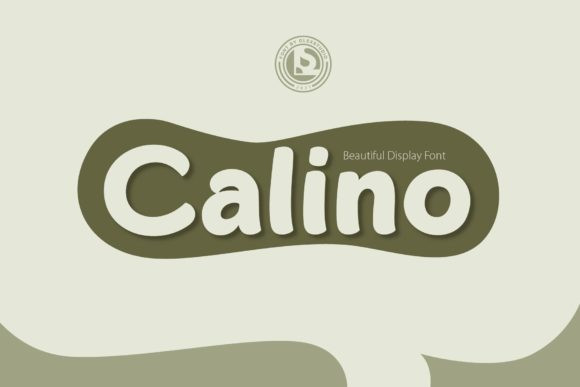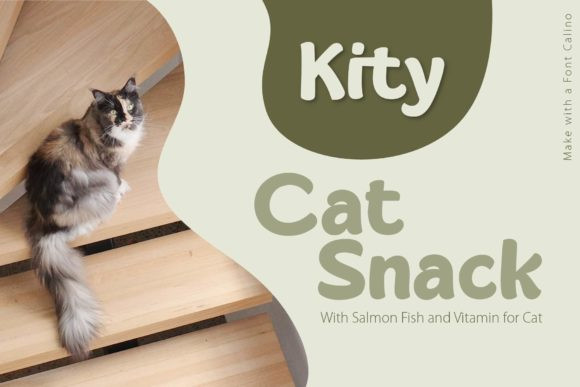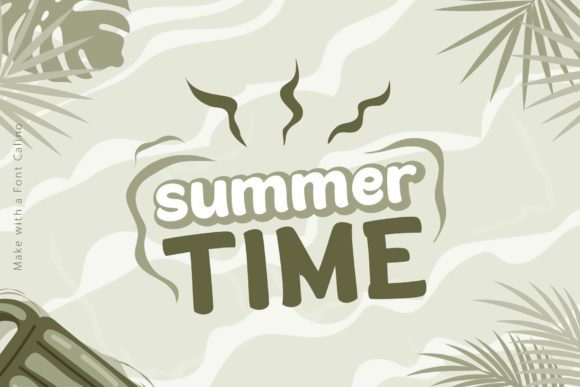
Calino Font
Calino is a cool, simple and adaptable display font. It can be added to a variety of design ideas such as posters, packaging, labels and designs.